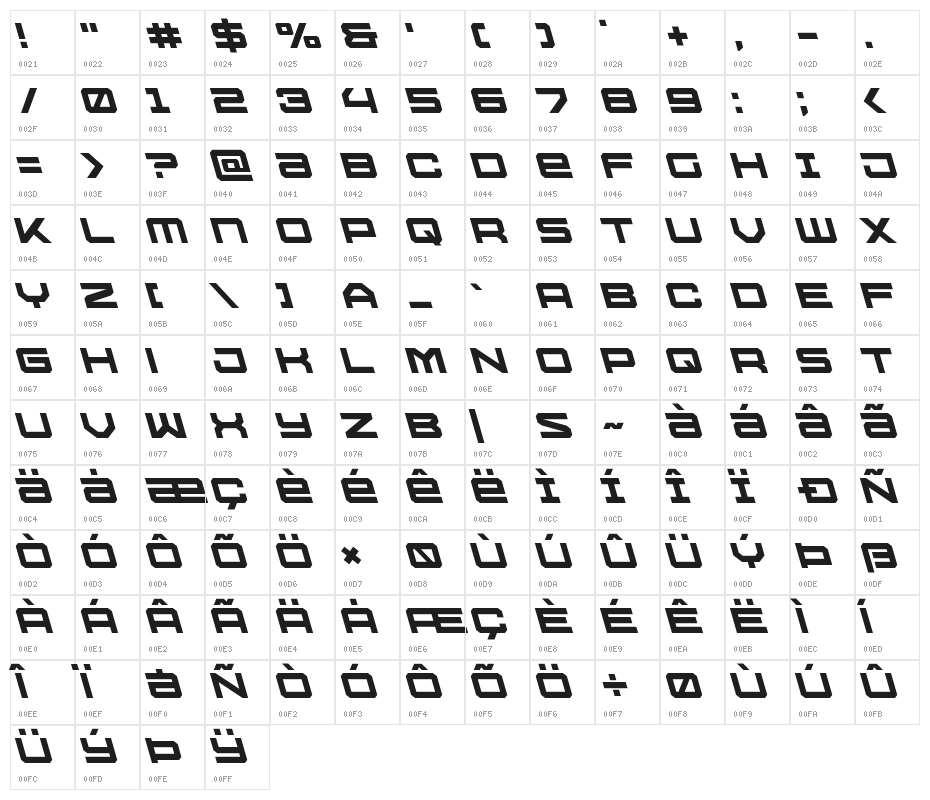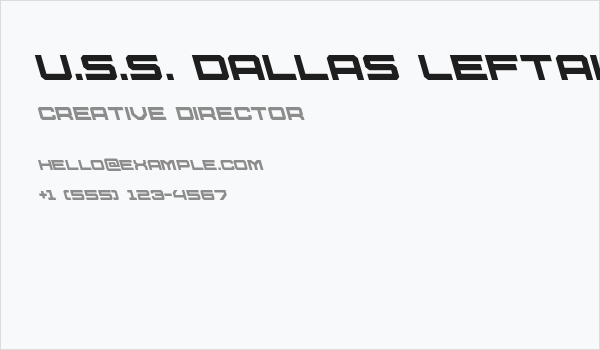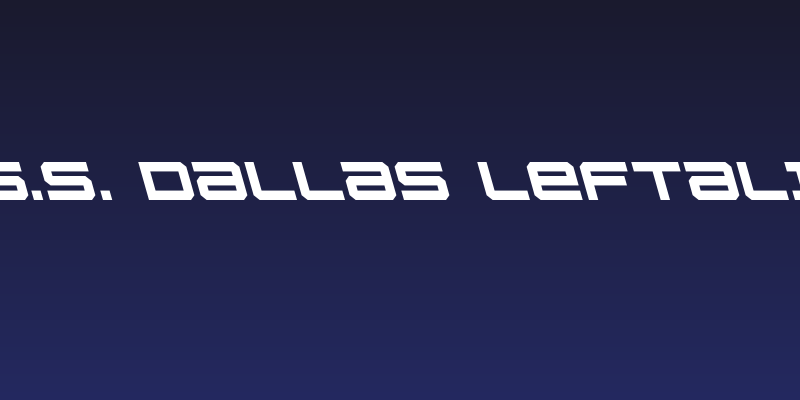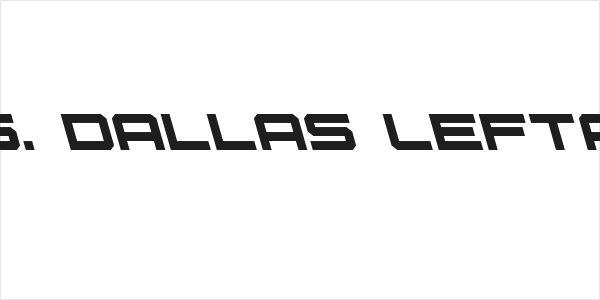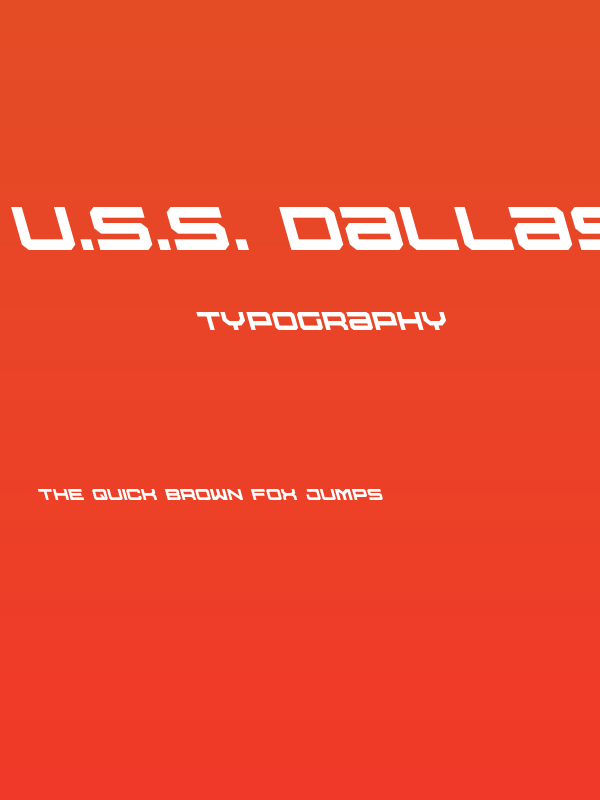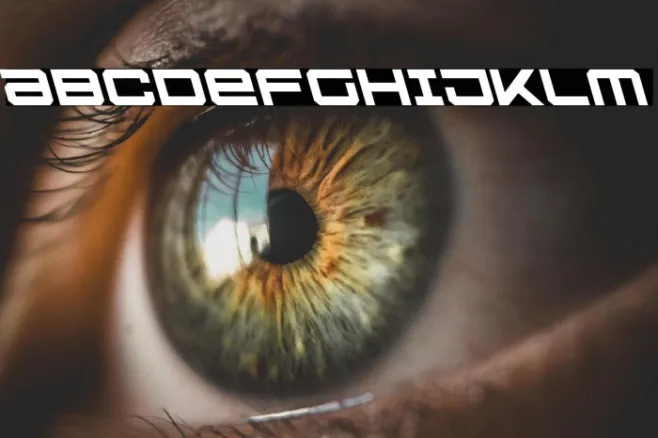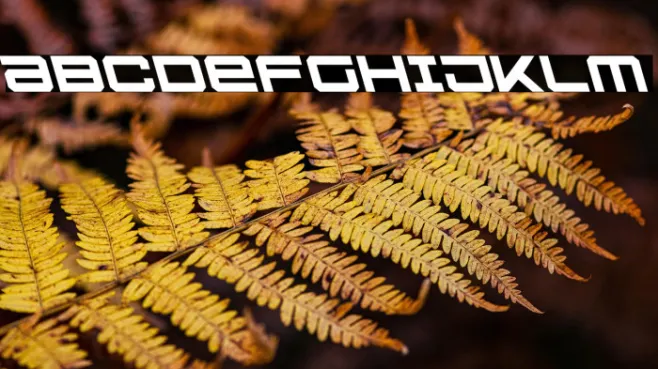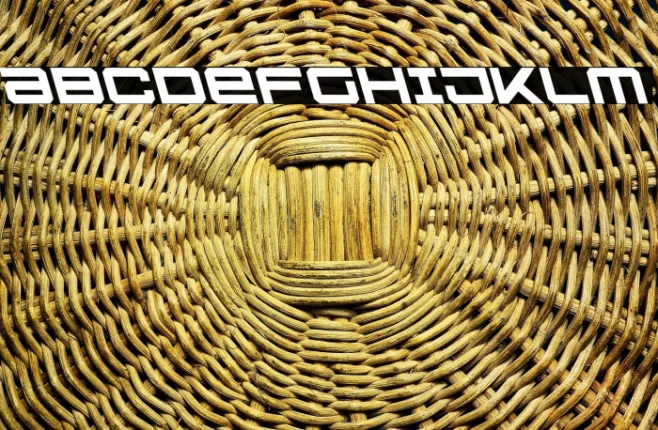
U.S.S. Dallas Leftalic Font
U.S.S. Dallas Leftalic Description
This font features a bold, angular design with a futuristic and mechanical aesthetic. The characters are slightly slanted, giving a dynamic and forward-moving appearance. The uppercase and lowercase letters maintain a consistent geometric style, with sharp edges and a uniform thickness throughout. The numerals and special characters follow the same design principles, ensuring a cohesive look across all elements. The font's distinct style makes it suitable for projects that require a modern and edgy feel.
| Proposed Projects | Ideal for technology branding, sci-fi movie posters, video game titles, and modern logos. |